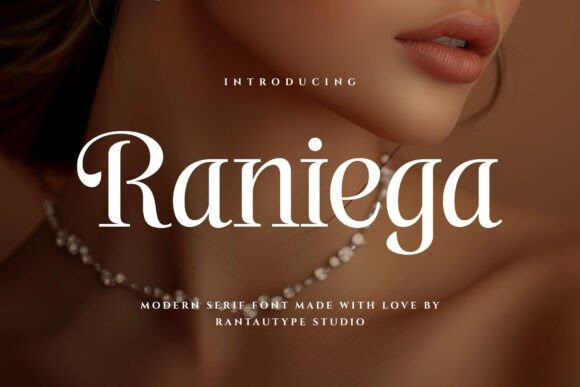
Raniega Font
Designer: RantauType
Raniega Font is an elegant and bold serif font. Fall in love with its incredibly versatile style and use it to create gorgeous wedding invitations, beautiful stationary art, eye-catching social media posts, and much more!